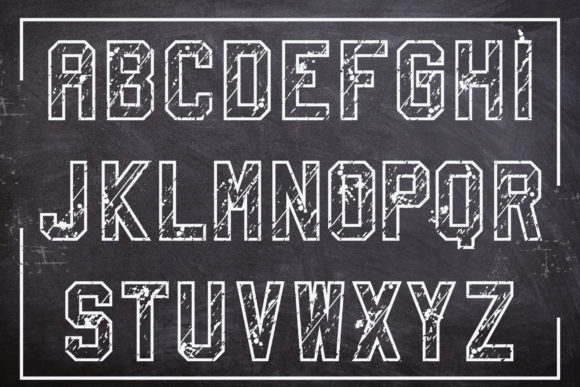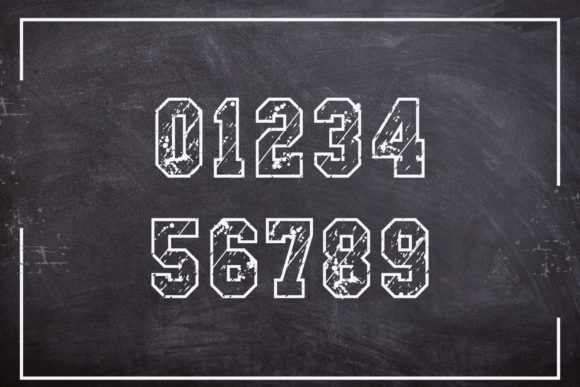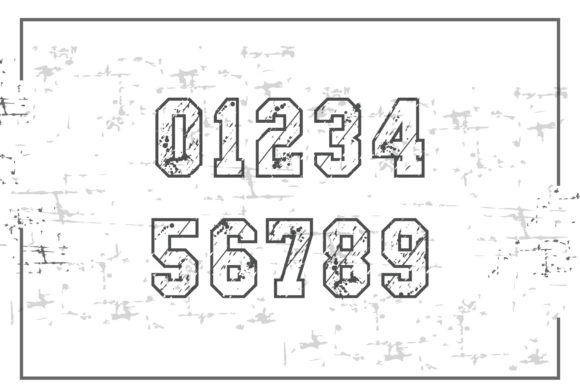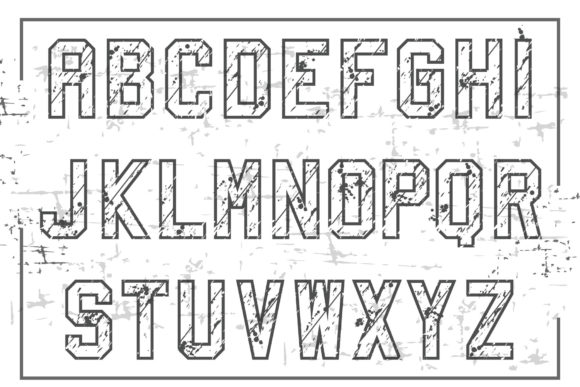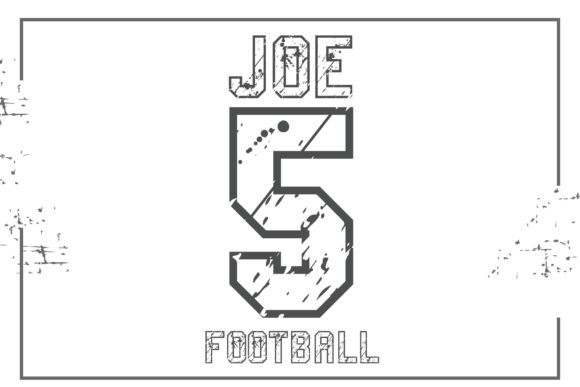
Unleash Your Creativity with Battlefield Font: The Ultimate Display Font for Speed and Power
Are you looking for a font that exudes confidence, energy, and a sense of competition? Look no further than the Battlefield font, an assertive and authentic outlined display font designed to capture the essence of speed and power. In this article, we’ll explore the features and benefits of this versatile font, and how it can elevate your designs for racing, sporting events, and beyond.
What is Battlefield Font?
Battlefield font is a bold, outlined display font that makes a statement. Its rugged, edgy design is perfect for creating eye-catching headlines, titles, and graphics that demand attention. With its clean lines, sharp edges, and dynamic feel, this font is sure to add a burst of energy to any design project.
Key Features of Battlefield Font
- Assertive and Authentic: The Battlefield font has a strong, confident presence that’s perfect for creating bold statements.
- Outlined Design: The font’s outlined design adds a touch of sophistication and elegance, making it suitable for a wide range of applications.
- High-Impact: The font’s bold lines and sharp edges create a high-impact visual effect that’s sure to grab attention.
- Versatile: The Battlefield font can be used for a variety of design projects, from racing and sporting events to posters, flyers, and more.
Perfect for Racing and Sporting Events
The Battlefield font is specifically designed with racing and sporting events in mind. Its dynamic, high-energy feel makes it perfect for creating posters, banners, and other promotional materials that need to capture the excitement and intensity of competition. Whether you’re designing for a car racing event, a marathon, or a sports tournament, this font is sure to deliver.
Endless Variation and Creative Possibilities
One of the best things about the Battlefield font is its endless variation and creative possibilities. With its outlined design, you can experiment with different colors, textures, and effects to create unique and eye-catching designs. You can also combine the font with other design elements, such as images, shapes, and patterns, to create complex and visually appealing compositions.
Tips for Using Battlefield Font
- Use it boldly: The Battlefield font is designed to make a statement, so don’t be afraid to use it boldly and prominently in your designs.
- Experiment with colors: Try out different colors and color combinations to add depth and interest to your designs.
- Mix and match: Combine the Battlefield font with other design elements, such as images and shapes, to create complex and visually appealing compositions.
In conclusion, the Battlefield font is a powerful and versatile display font that’s perfect for designers and crafters looking to add a touch of speed and power to their designs. With its assertive and authentic outlined design, high-impact visual effect, and endless variation and creative possibilities, this font is sure to deliver results. So why wait? Download the Battlefield font today and unleash your creativity!